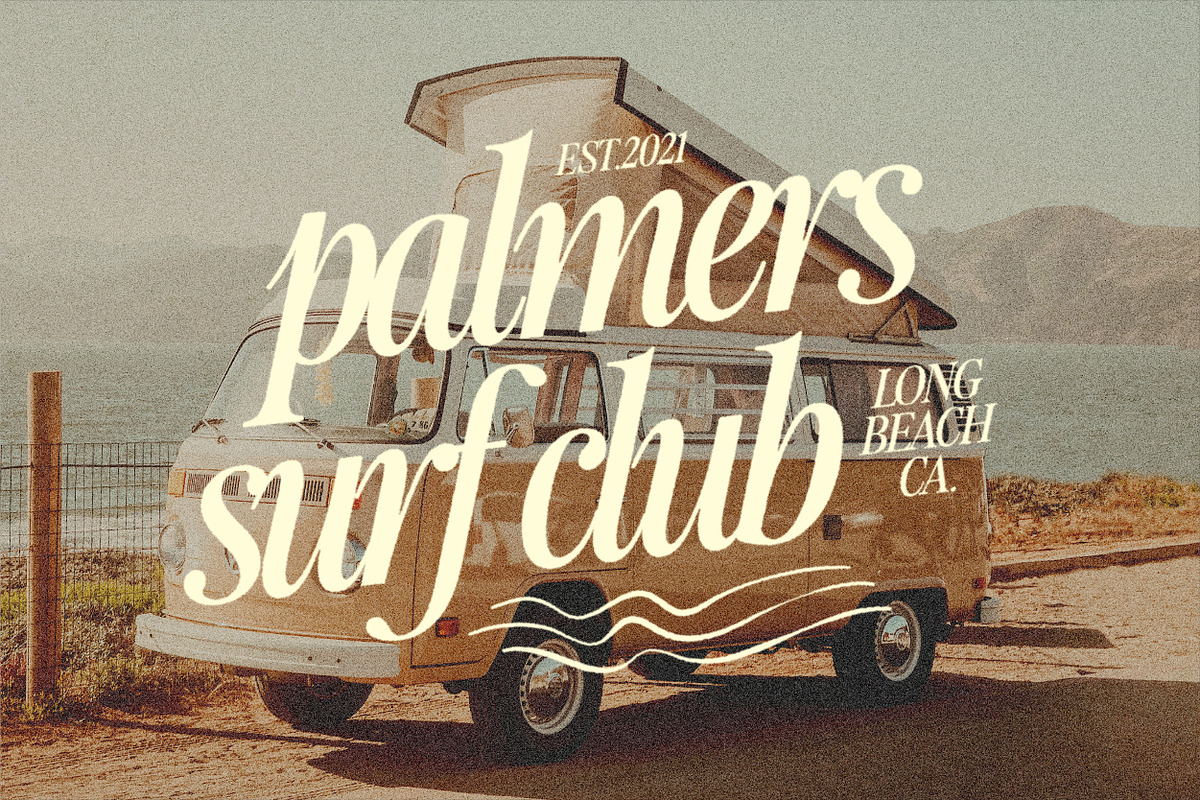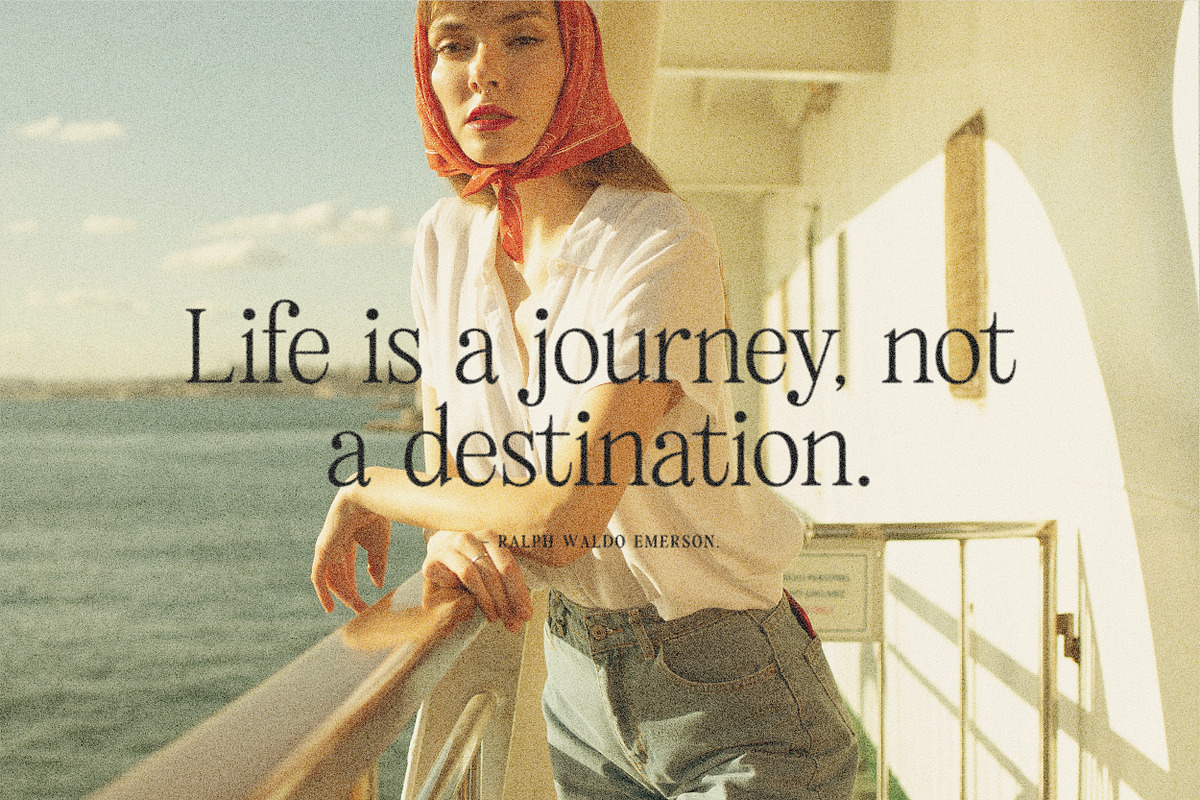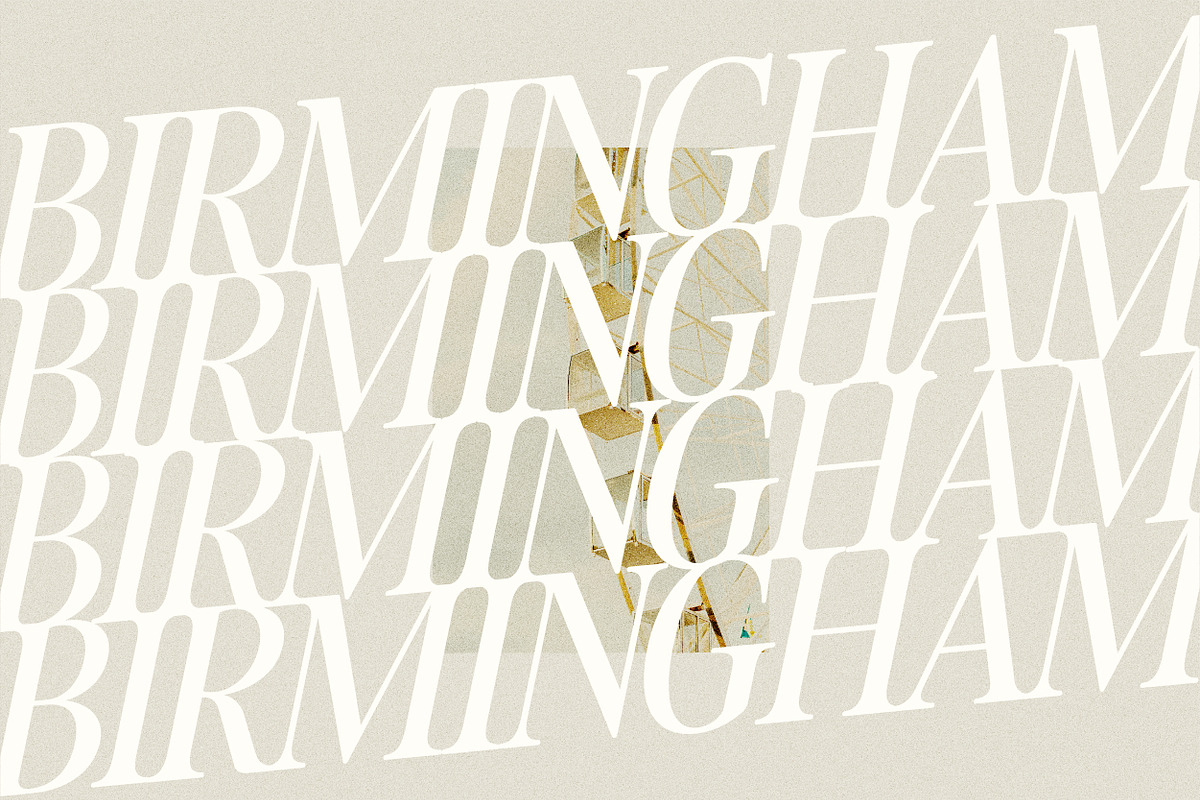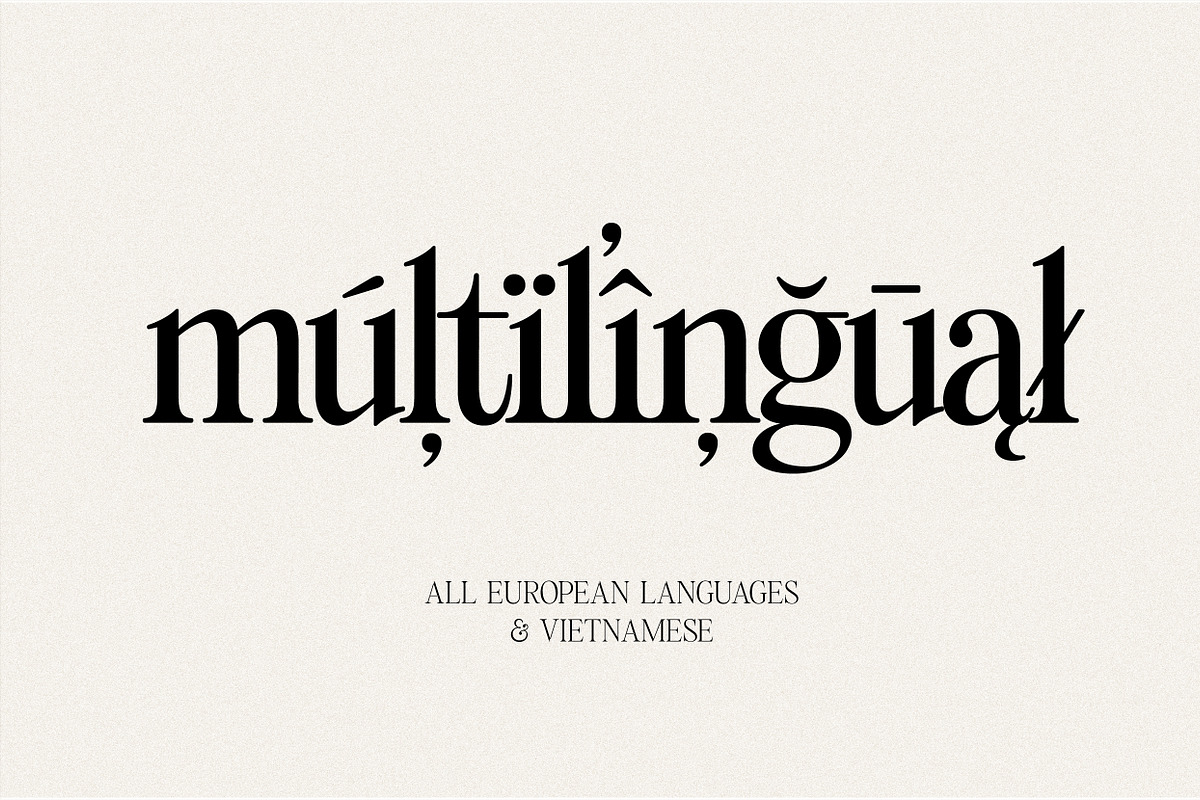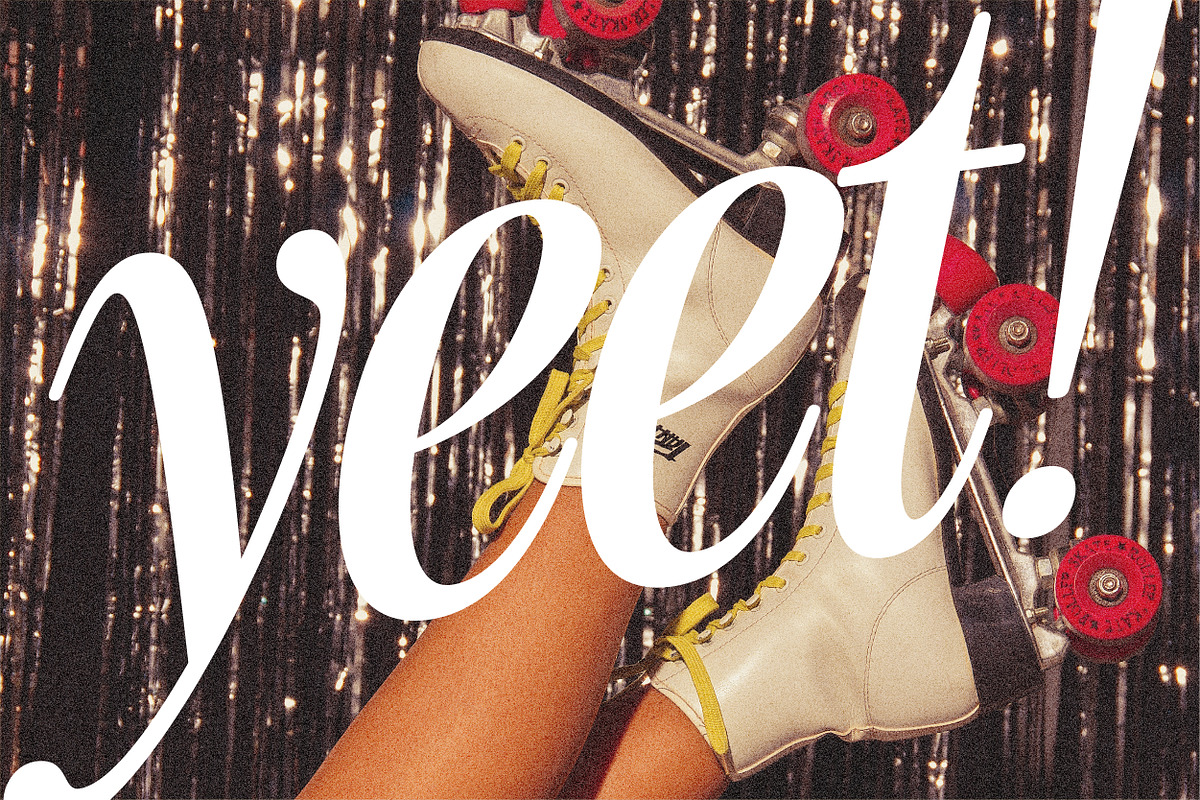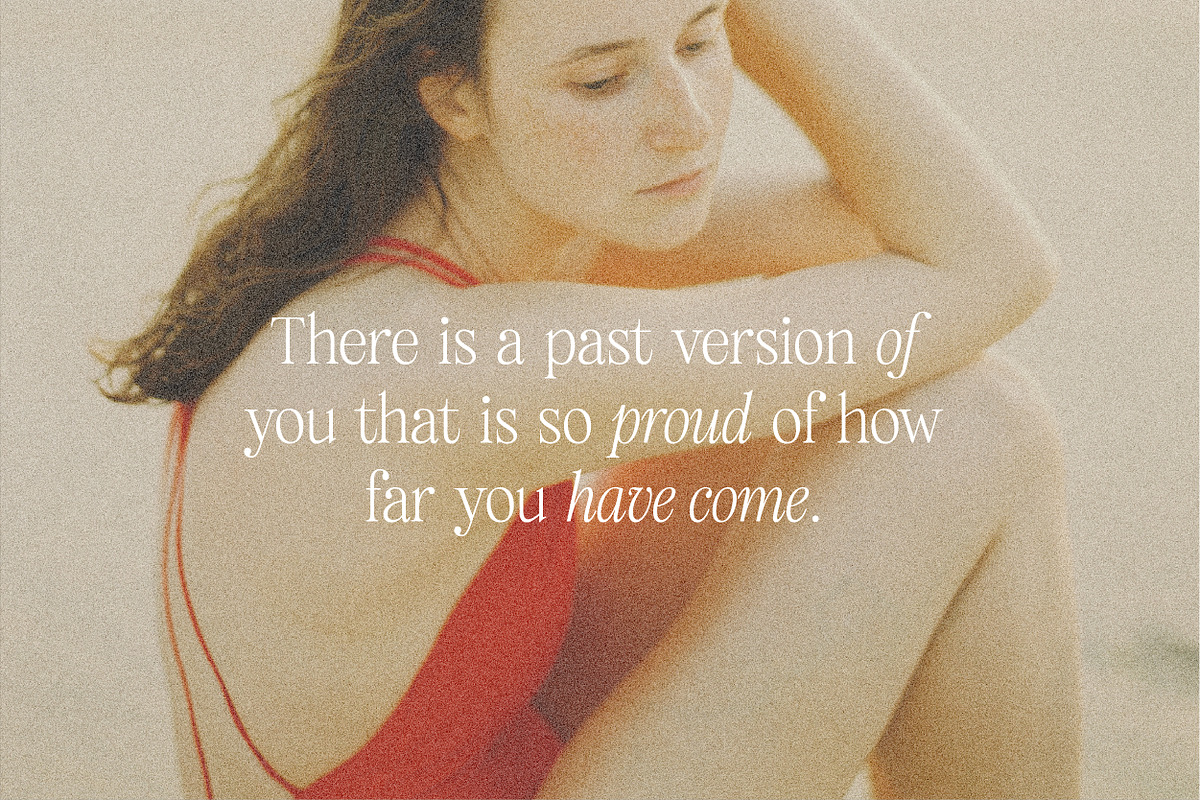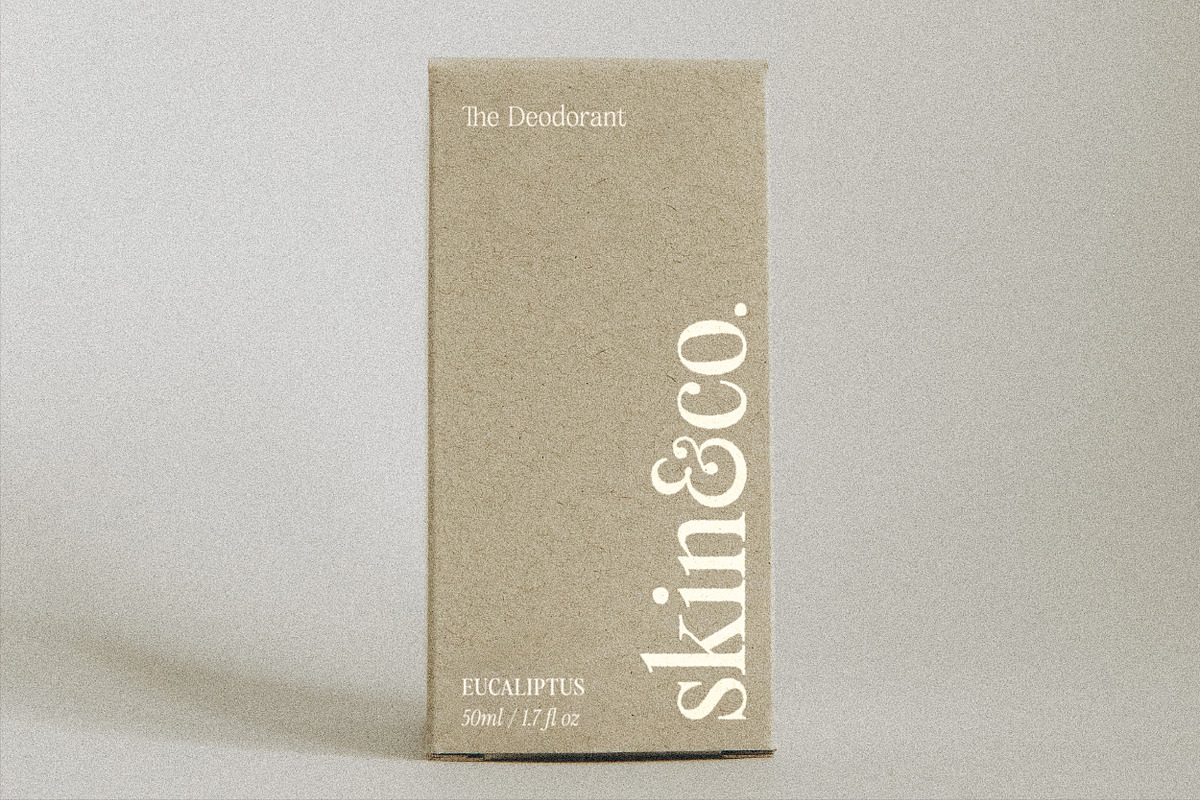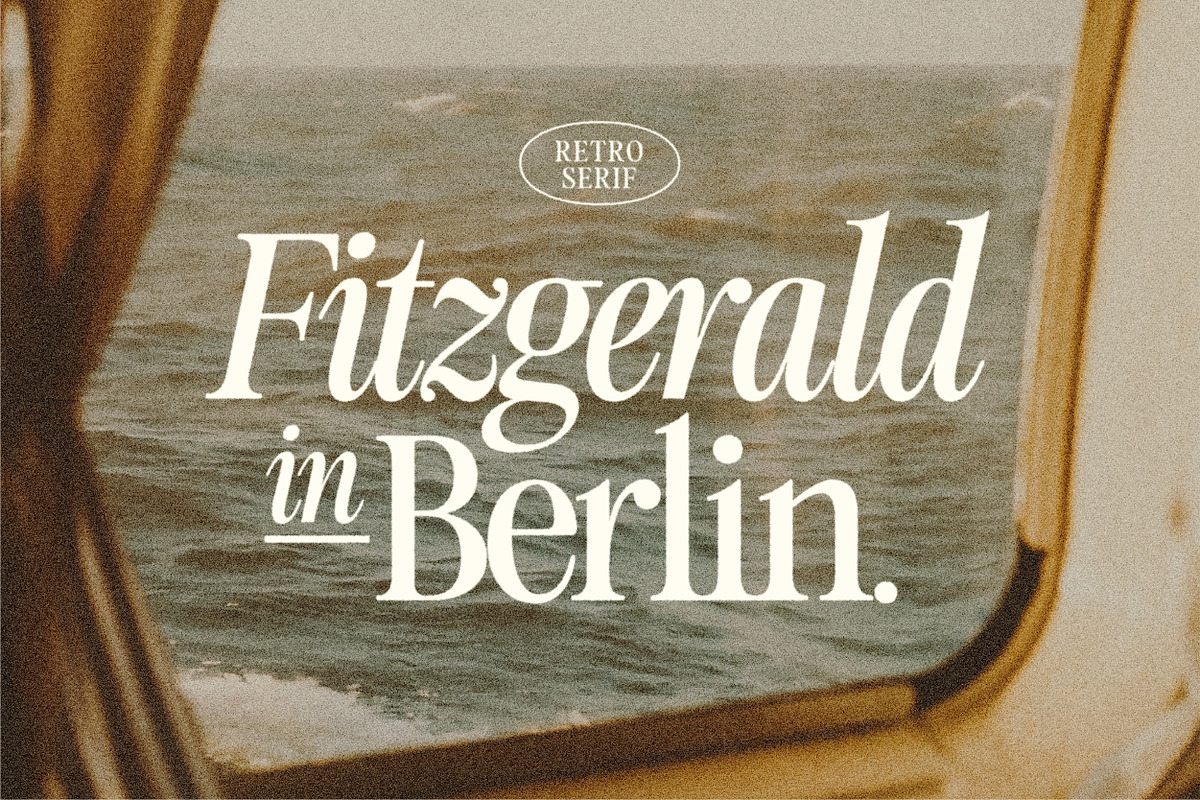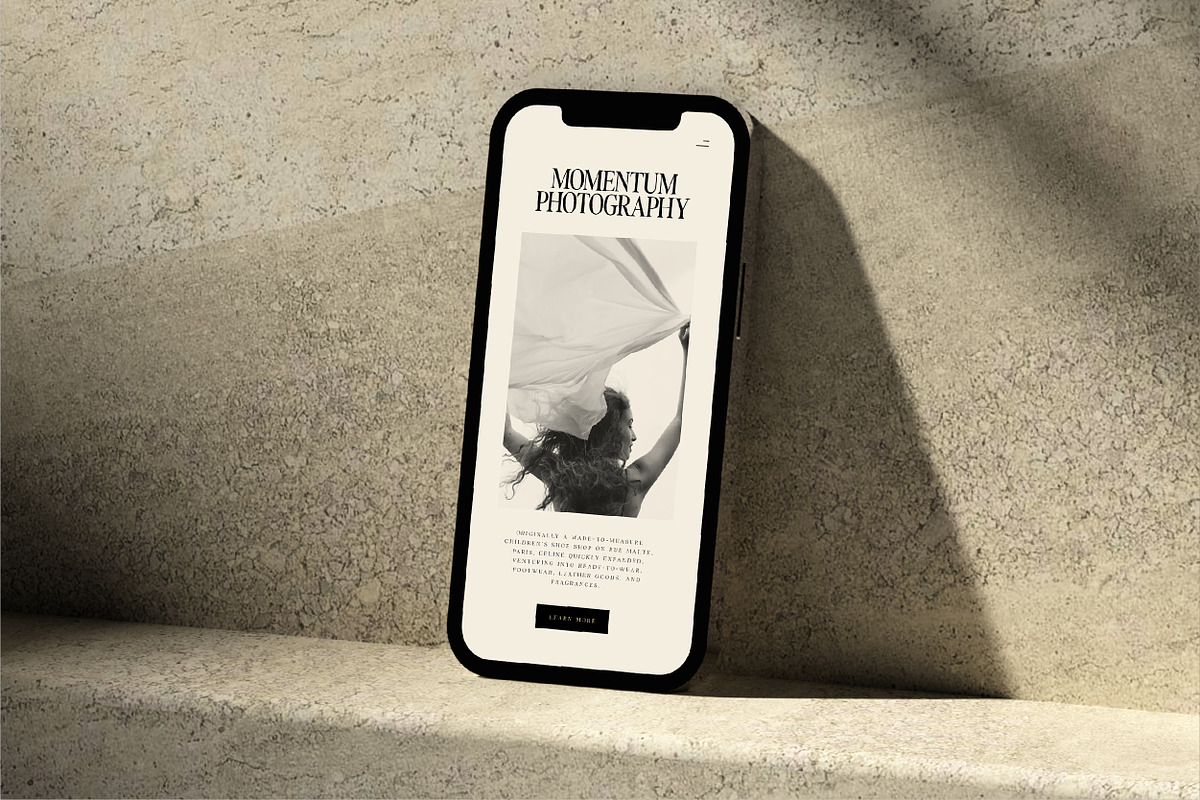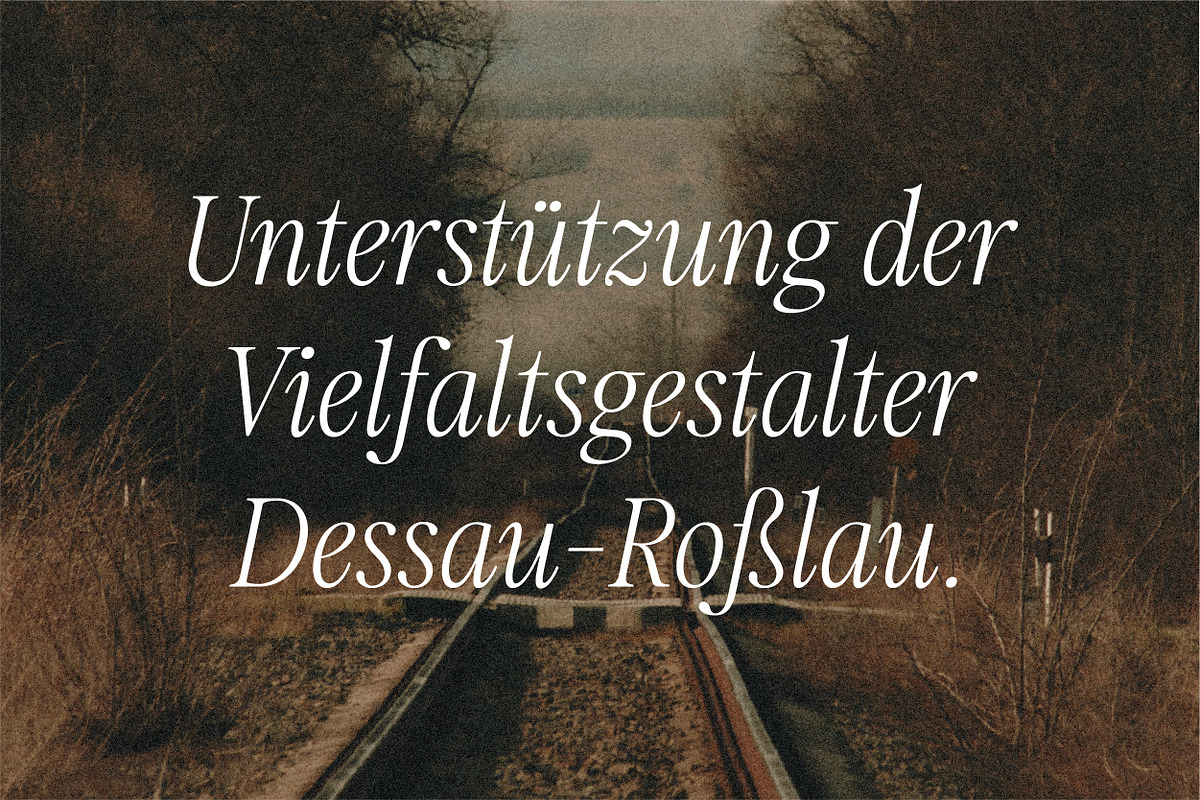
Fitzgerald - Classic Retro Serif
Fitzgerald is a classic and elegant retro serif with a modern twist. With its decent readability, Fitzgerald is perfect for both displays as well as body text.
Inspired by all the retro aesthetics making a comeback, Fitzgerald is perfectly suitable for creating nostalgic yet still clean and elegant designs such as logos, packaging, editorial, and more.
HV FITZGERALD FEATURE:
Europeans languages
Vietnamese